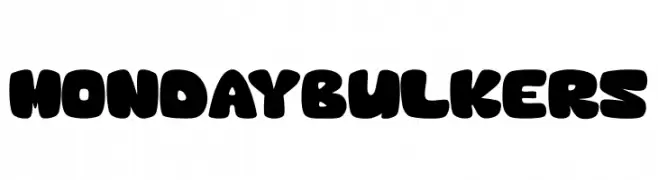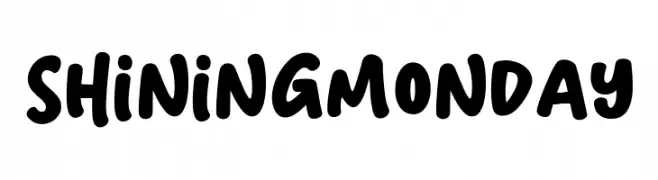
A modern, geometric font with clean lines and rounded edges.
A bold, distressed font with a rugged, grunge style.
A playful, rounded font with a hand-drawn, whimsical style.
A bold, expressive script font with flowing, cursive letterforms and high contrast.
A playful, bold font with rounded strokes and a hand-drawn feel.
A bold, expressive handwritten font with dynamic strokes and a lively appearance.
A bold, playful handwritten font with rounded strokes and a lively vibe.
A bold, rounded, and playful font with smooth curves and thick strokes.
A bold, brush-style handwritten font with a playful and dynamic appearance.
A modern serif font with artistic flair and balanced elegance.